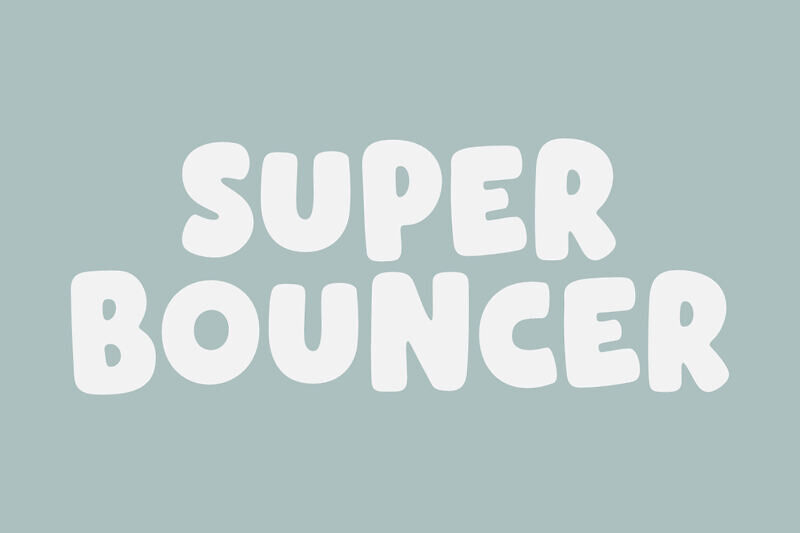
Super Bouncer is a lively cartoon display font with bold, rounded letterforms and an energetic, playful personality.
Its bouncy shapes make it ideal for children’s designs, logos, posters, packaging, stickers, gagraphicsme, and cheerful headlines. The font offers broad creative flexibility and is free for both personal and commercial use.